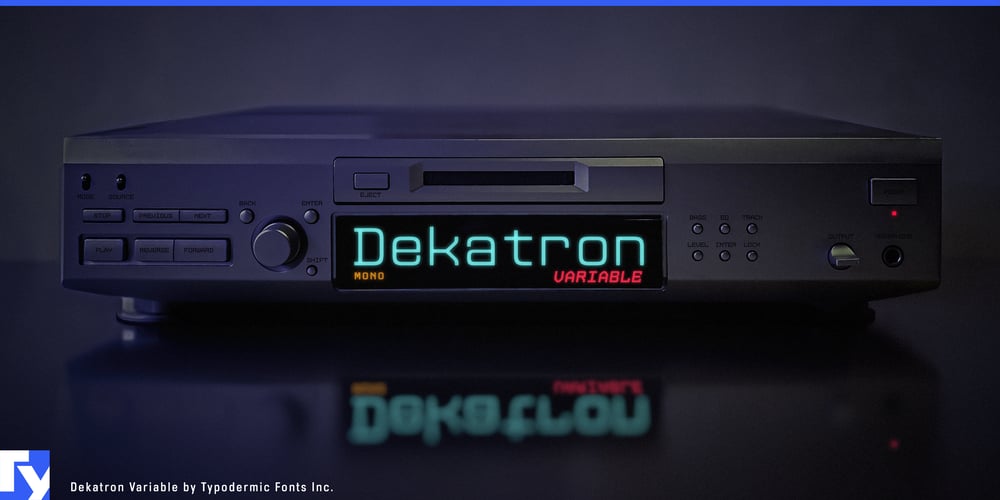
Dekatron Variable
Dekatron Variable font
Dekatron Variable Font Family was designed by Ray Larabie and published by Typodermic. Dekatron Variable contains 1 styles and family package options. Dekatron Variable: The future of monospaced typography, infinitely refined. This groundbreaking typeface from Typodermic Fonts pushes the boundaries of what’s possible in fixed-width design.Harness the power of dynamic weight and slant axes, allowing seamless transitions from whisper-thin to boldly commanding, and from upright to elegantly slanted—all without disrupting text flow. Dekatron Variable maintains precise character spacing regardless of weight or slant, opening up a world of possibilities for responsive design, interactive displays, and dynamic typography. Imagine user interfaces that adapt in real-time, motion graphics that transform with fluid grace, or print designs that fine-tune emphasis without reflowing text—all from a single, efficient font file. Dekatron Variable makes it possible.At its core, Dekatron Variable sports a futuristic, squarish aesthetic tempered by subtle analog warmth. Precision-rounded ends and superelliptical corners create a harmonious blend of clarity and sophistication, speaking the language of technology with a human touch. From coding platforms and technical documentation to sci-fi film titles and beyond, Dekatron Variable excels where precision meets innovation. Its monospaced architecture brings order to complex information, while its design flexibility elevates the mundane to the extraordinary. Dekatron Variable is fluent in the future, supporting a vast array of Latin-based European writing systems. Whether you’re crafting algorithms in English or poetry in Polish, it articulates your vision with unwavering clarity and style across linguistic borders.Step into the next era of typographic expression with Dekatron Variable. In a world where every character counts, it stands as a testament to innovation, ready to give voice to ideas that push boundaries. Don’t just keep pace with the future—define it with Dekatron Variable.